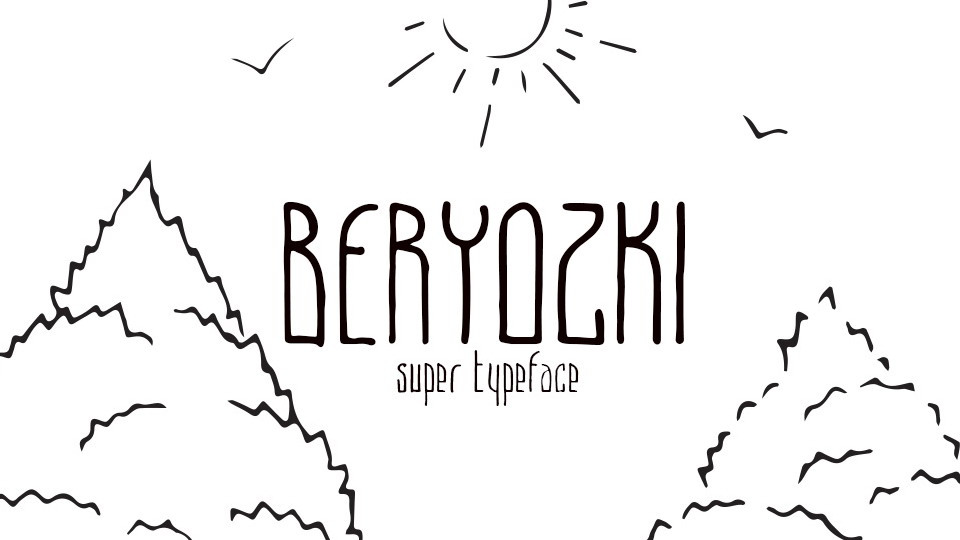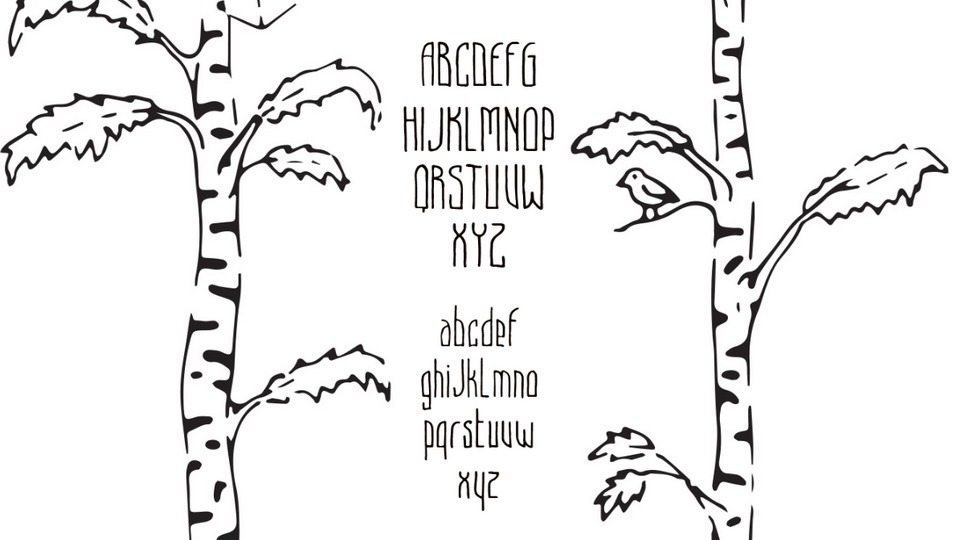
Beryozki is an authentic handwritten font with condensed style. It contains a full charcters set, supports Latin and Cyrillic languages.
Beryozki font is suitable for headlines, social media, quotes, craft designs and other projects with a personal touch.